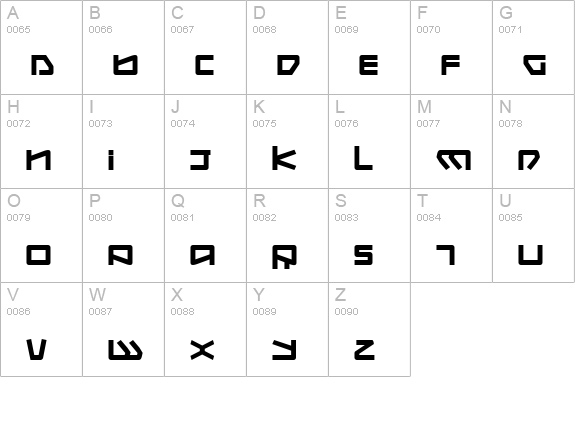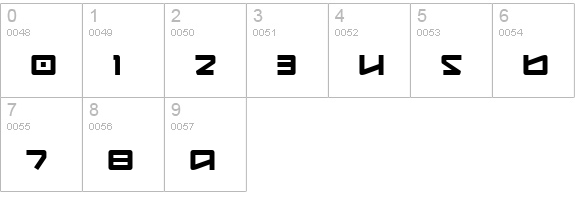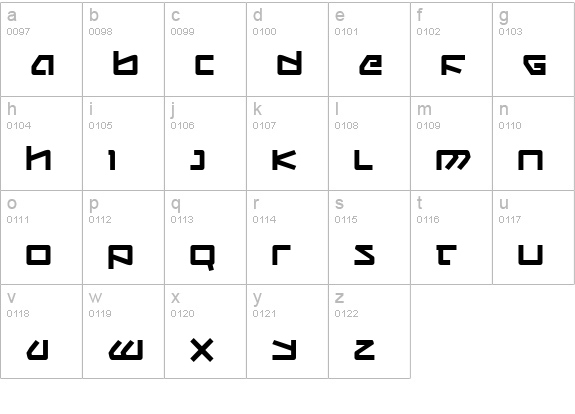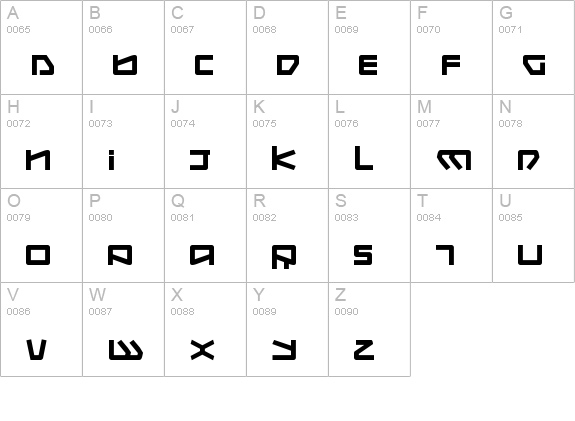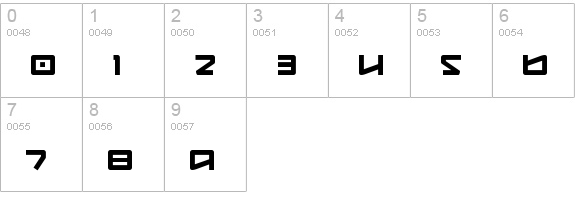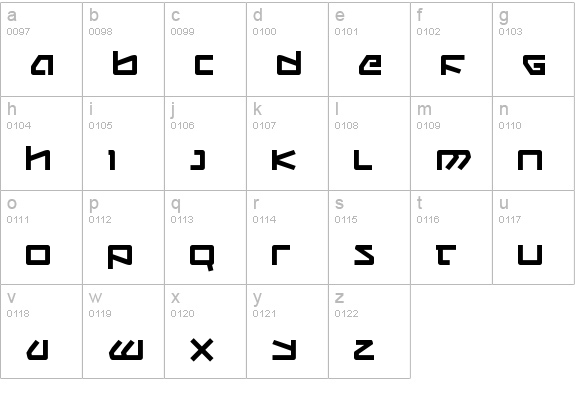
Kobold Bold is a strong, high-contrast variant in the Kobold typeface family \xE2\x80\x94 well suited to headlines, attention-grabbing titles, and strong calls-to-action.
Kobold Bold font is a striking and versatile typeface that exudes a sense of strength and modernity. With its bold and robust letterforms, Kobold Bold is perfect for making a bold statement in any design project. Whether you're designing a poster, logo, or website, this font will command attention and leave a lasting impression. What makes Kobold Bold even more appealing is that it is available for free download at FontsMarket.com. This means that you can easily access this high-quality font and use it in your projects without any cost. Don't miss out on the opportunity to enhance your designs with the bold and impactful Kobold Bold font - download it for free today!